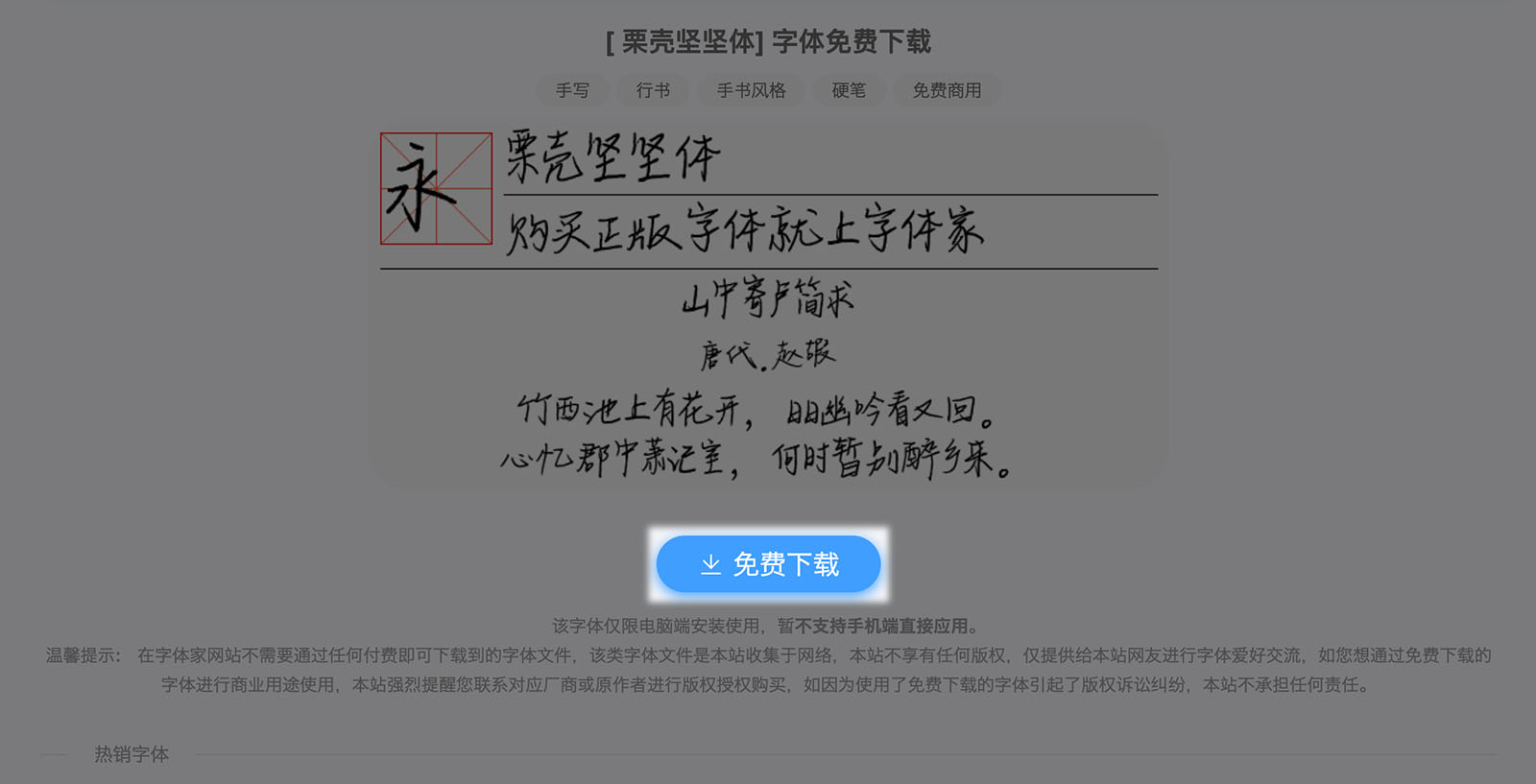
Li Ke Jian Jian Ti
Li Ke Jian Jian Ti (栗壳坚坚体) is a free handwriting font and was the first font published by Li Ke Font Foundry. It was a dream of the font creator to produce a typeface. They were once received rejections from various big font foundries from their samples they submitted. Without giving up, they decided to make their own font and this font was the result of it. They initially handwritten the characters on papers, and then scanned and adjusted digitally with font software. According to them, creating this font is a learning process, and the font might be still have imperfections, and they will continue to improve the font and will release newer improved version in the future.
The handwriting style of Li Ke Jian Jian Ti is quite distinctive and perhaps towards more on the sketchy side. Therefore it might not be as easily read. It comes with 6700+ simplified Chinese characters, along with latin characters including alphanumerics and punctuations. You may download this font for free and use it for personal and commercial projects.